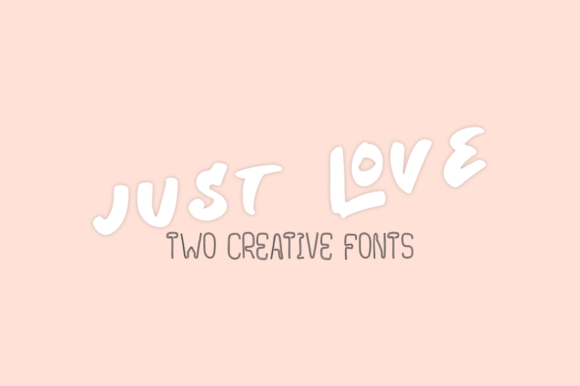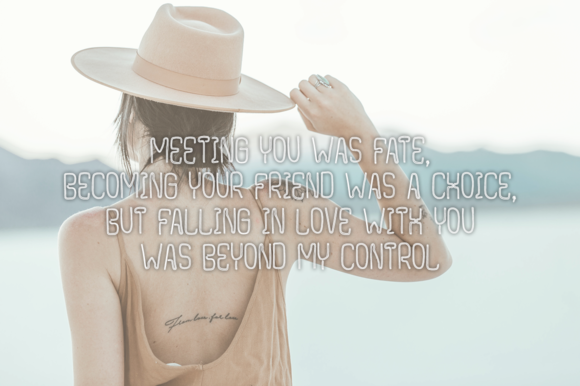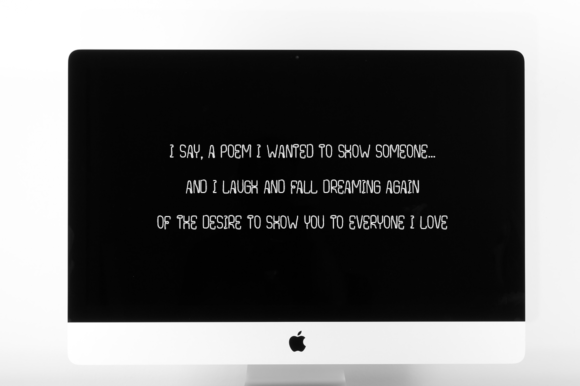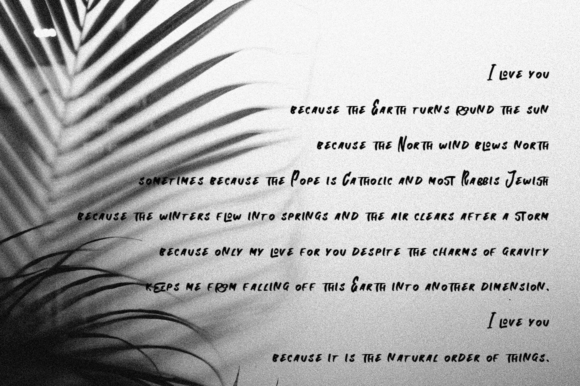
Just Love Font: A Cute Display Font for Cards & Aesthetic Typography
About the Just Love Font
Make a bold statement with Just Love Font, a powerful and memorable font. Just Love is a cute and thick lettered display font. It is incredibly suitable for creating greeting cards, branding materials, business cards, quotes, posters, and more!
Its bold, playful character makes it ideal for headlines, short impactful phrases, and logos requiring a friendly, approachable feel. It excels in branding for children’s products, cafes, or businesses emphasizing warmth and approachability. Avoid using it for body text or long paragraphs; its thickness can hinder readability in smaller sizes.
Pairing Just Love with a clean sans-serif like Open Sans for body copy creates a strong visual hierarchy. For a more playful feel, consider pairing it with a script font like Great Vibes for secondary elements, such as a tagline. Alternatively, a geometric sans-serif could provide a modern contrast.
The font’s overall personality is undeniably cheerful and optimistic, making it a strong choice for projects needing a touch of friendly exuberance.
Just Love Font Usage Examples
Just Love Font Example